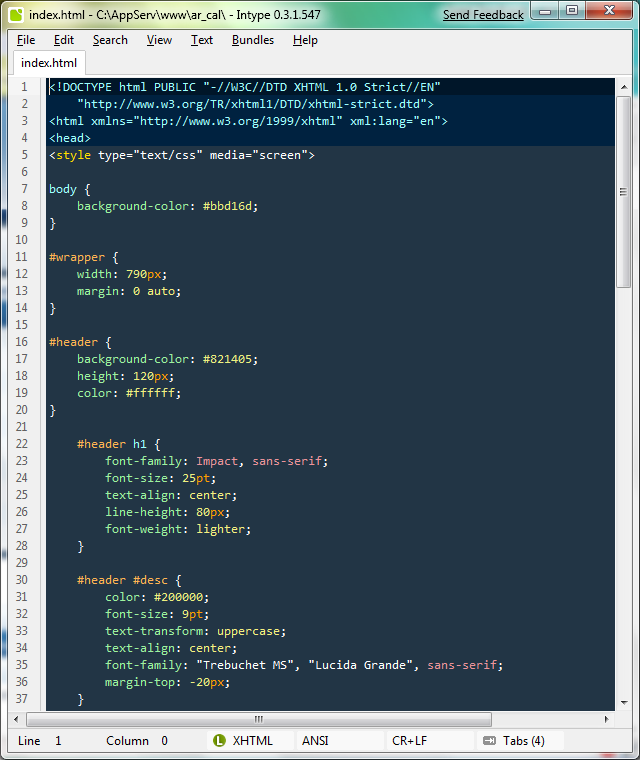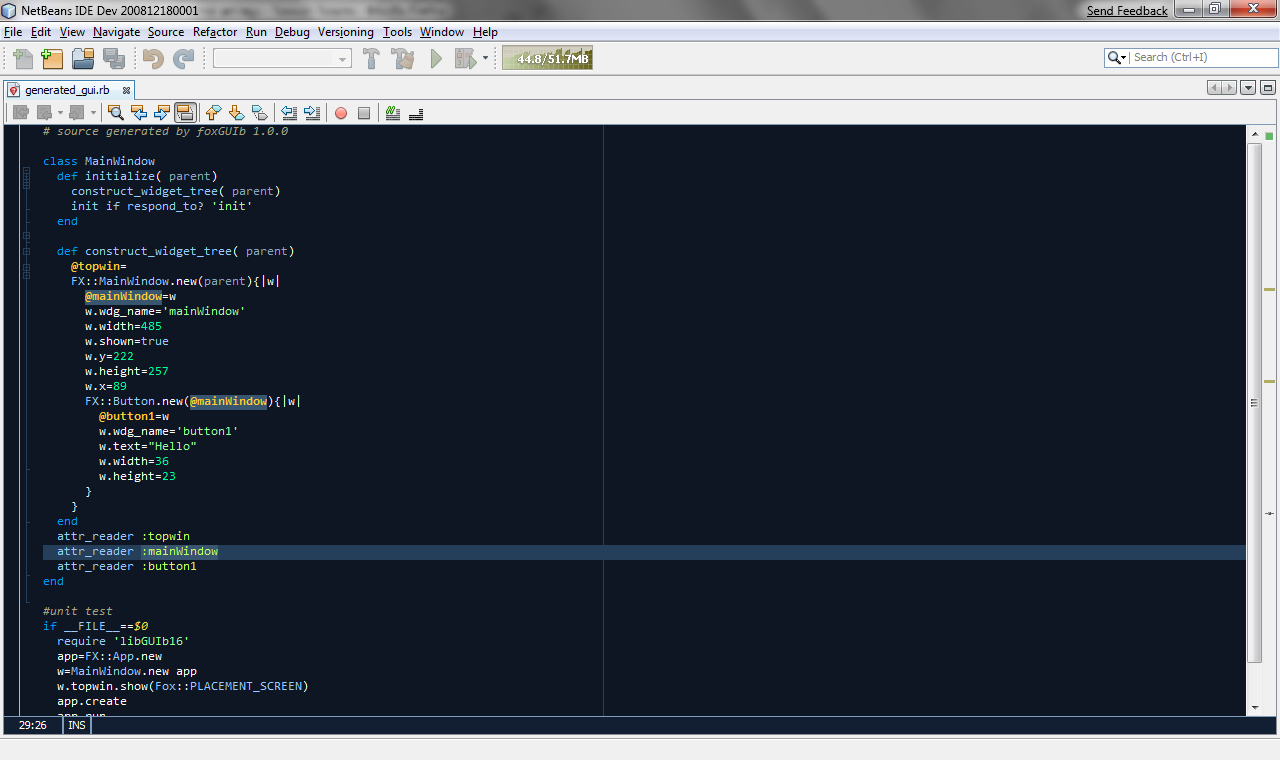
What font do you code in, and other settings
Curious what other coders use for their font while coding. I'm using VS2008, 2005 and MS SQL Management.
I've switched to Lucida Sans Unicode (black, 8pt), with a silver back ground and it seems to be easier on the eyes. But I was wondering those of you with black or darker backgrounds what font, font size, etc are and what your other display items are set to.